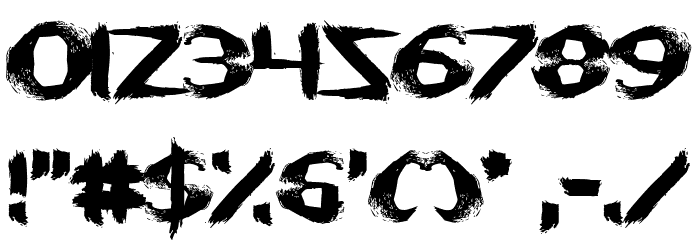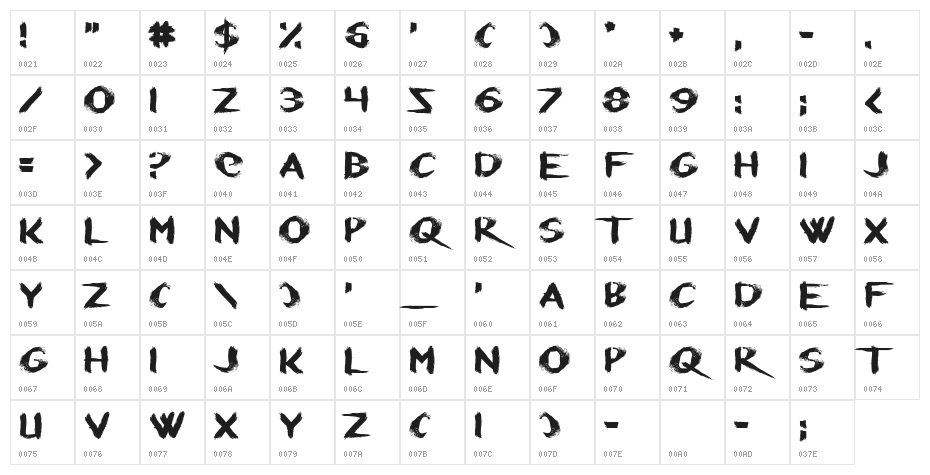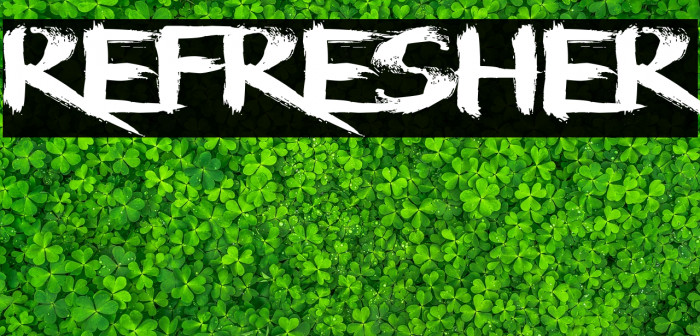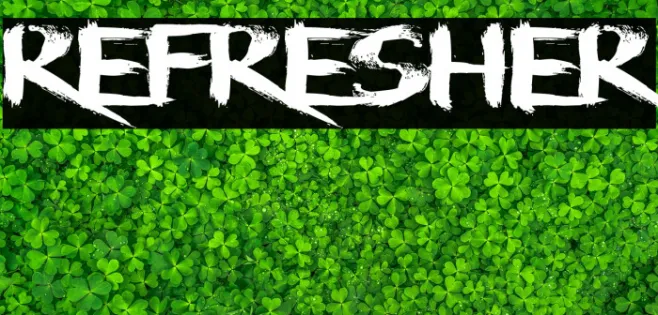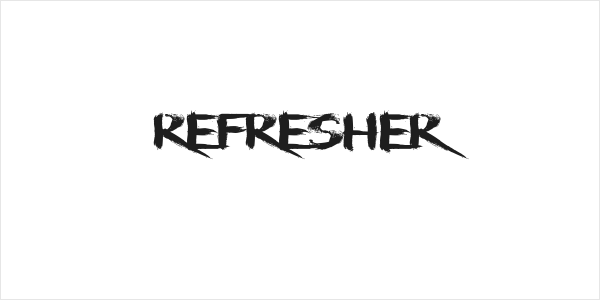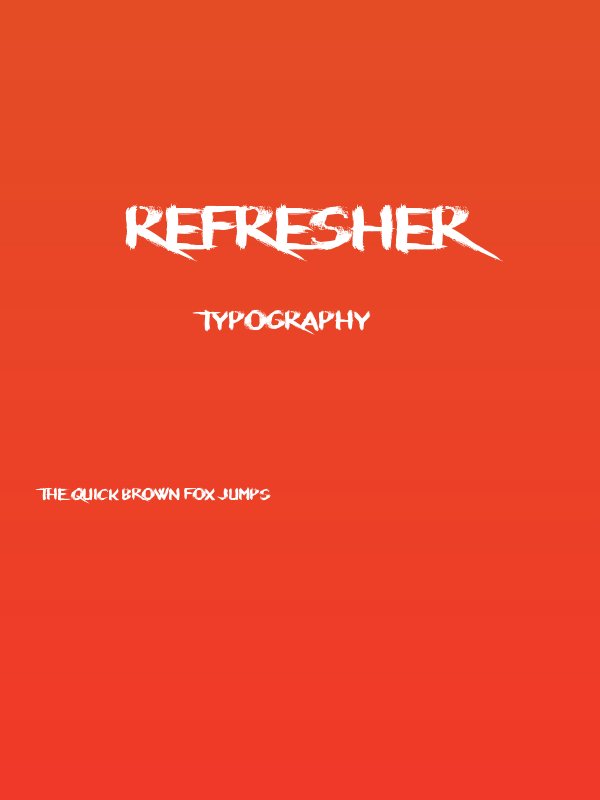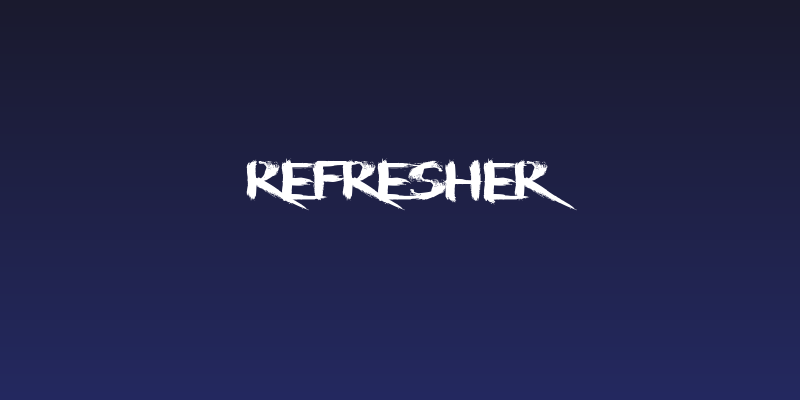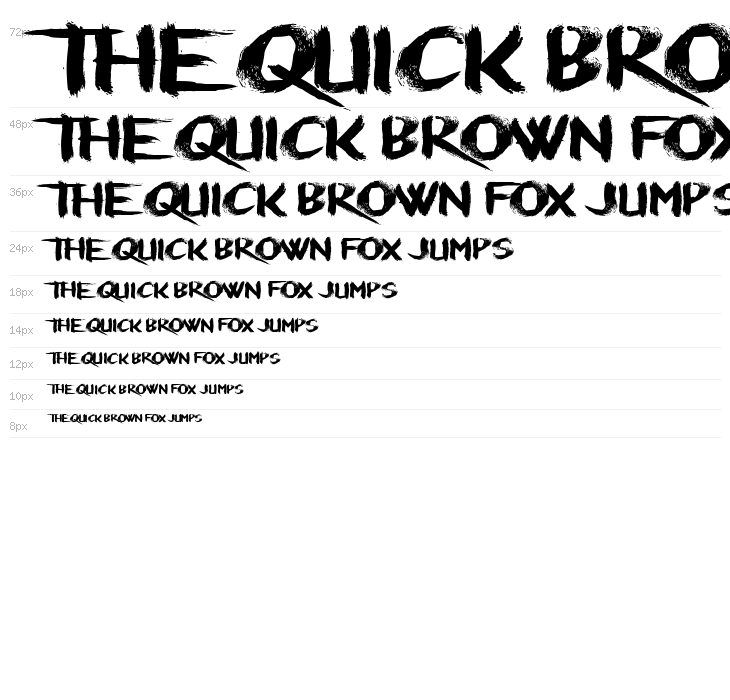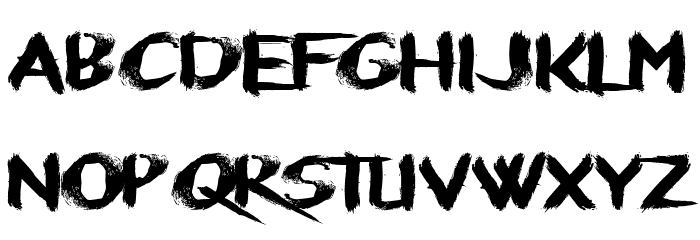
Refresher Font
Refresher Description
This font embodies a bold and dynamic brushstroke style, characterized by its rough, textured appearance. The letters are crafted with a sense of movement and energy, giving them a unique, artistic flair. The strokes are uneven, with varying thicknesses that add to the font's expressive nature. This design evokes a sense of creativity and spontaneity, making it ideal for projects that require a strong visual impact. The uppercase and lowercase letters maintain a consistent style, while the numbers and special characters are equally bold and distinctive. The overall look is both modern and edgy, suitable for contemporary designs.
| Proposed Projects | Ideal for posters, album covers, branding, and any project needing a strong, artistic touch. |